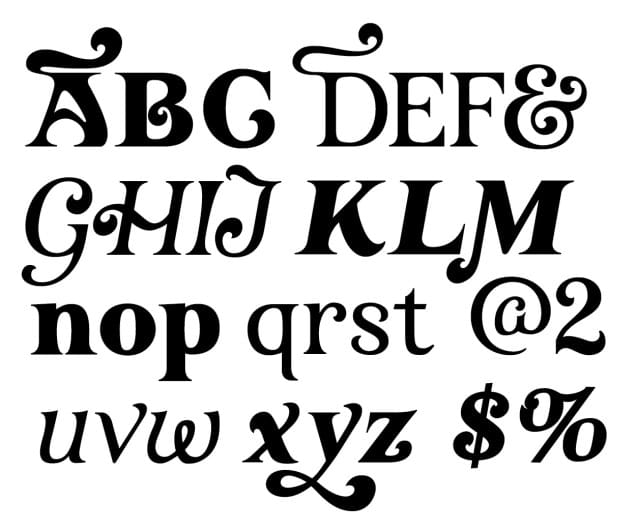
Daveau Font – This font is a reconstruction and expansion of “Davison Art Nouveau”, created by Meyer M. “Dave” Davison, using reference images collected by Florian Hardwig of fontsinuse.com. Lowercase italics letters take some inspiration from Dave Davison’s “La Valse Script”. All digitization, italics, light versions, and most of the symbols designed by Patrick J. “Patreeko” Dempsey.
Daveau Font